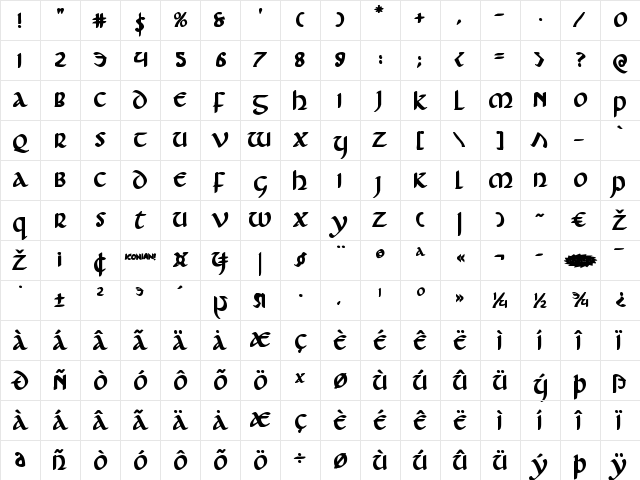
Foucault Bold Bold
Design Context for Foucault Bold Typeface
Foucault Bold is a composed and adaptable typeface that performs quietly and consistently across a wide range of design contexts. The heavy weight commands attention and anchors typographic hierarchies.